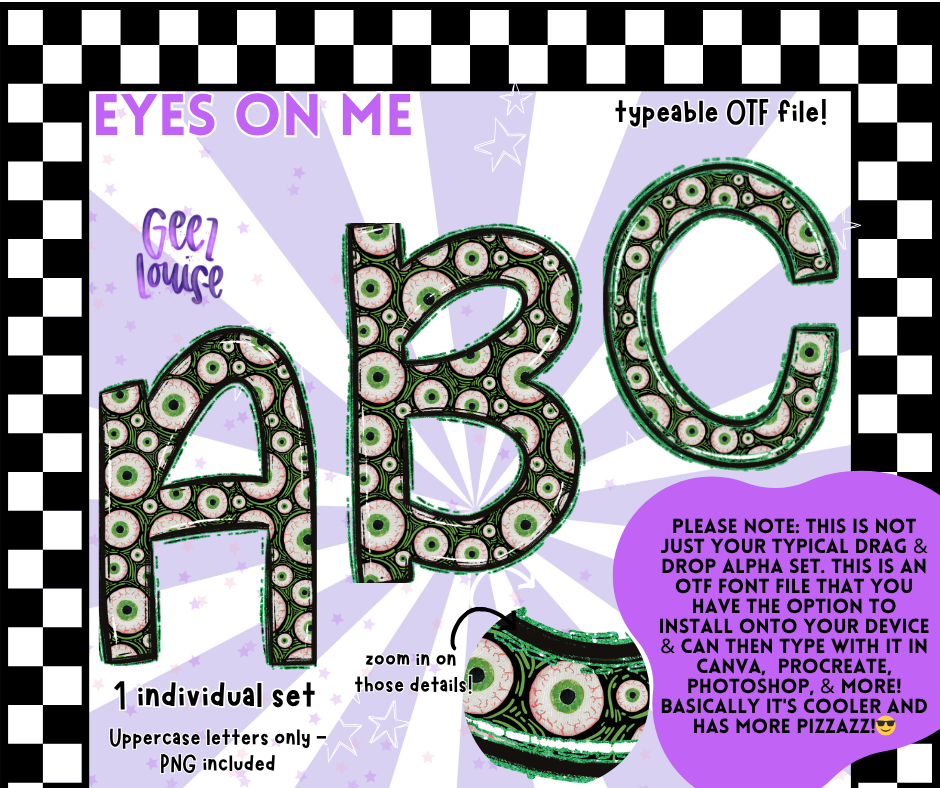
Eyes On Me Halloween OTF Font + PNG Alpha Set
All eyes will literally be on your designs with this creepy-cool font set 👁️💚
Eyes On Me features a full set of uppercase letters covered in bloodshot eyeballs, perfect for Halloween projects, horror themes, or just unsettlingly awesome designs. This set includes:
🧿 Uppercase letters only
🧿 Loaded with spooky vibes and retina-popping detail
Whether you're designing for spooky season or just love being watched (kidding... kinda), this font demands attention.